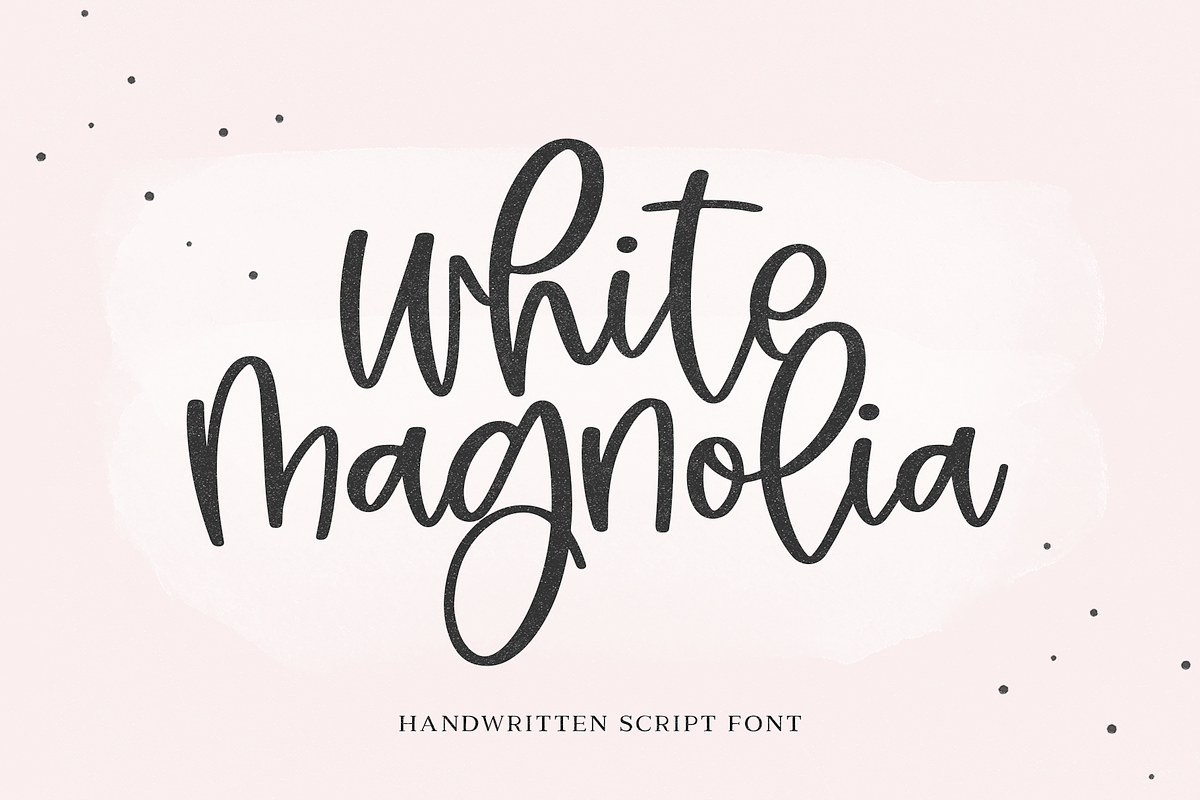
White Magnolia | Modern Script Font Free Download
Elegant, graceful, and full of charm, White Magnolia | Modern Script Font Free Download is a beautifully designed script typeface that brings sophistication and fluidity to your projects. Perfect for wedding invitations, logos, branding, social media graphics, and product packaging, this font adds a refined, artistic touch to any design.
With its smooth, flowing strokes and elegant swashes, White Magnolia evokes a sense of luxury and beauty, making it ideal for projects that require a personal, yet professional, touch. Whether you're working on high-end branding or crafting a romantic invitation, this font provides the perfect combination of class and personality.